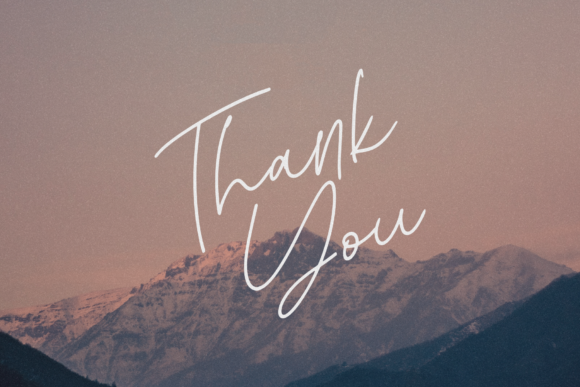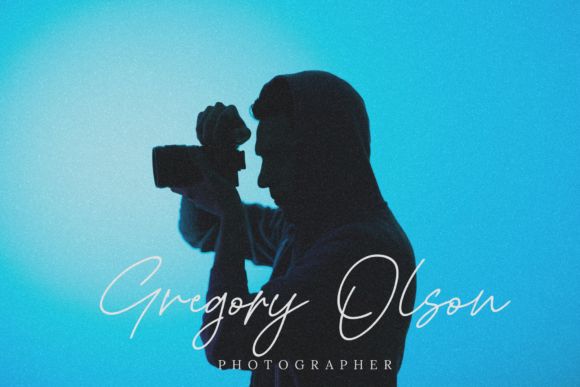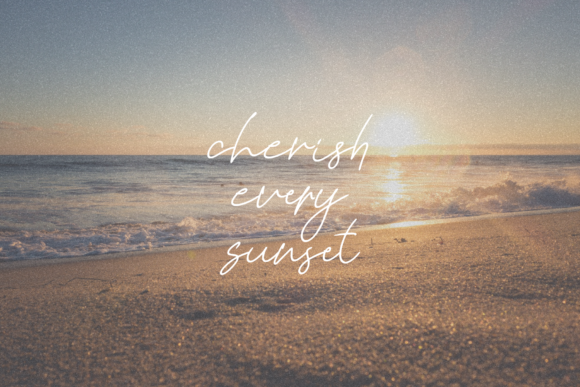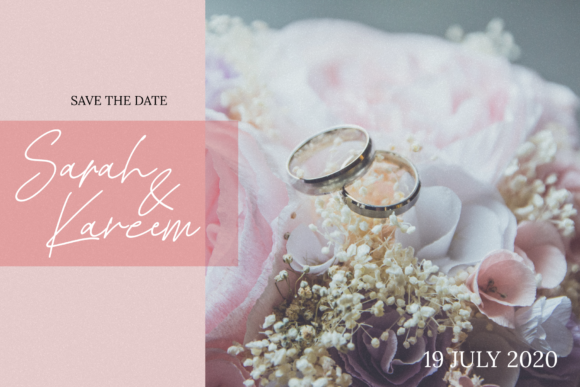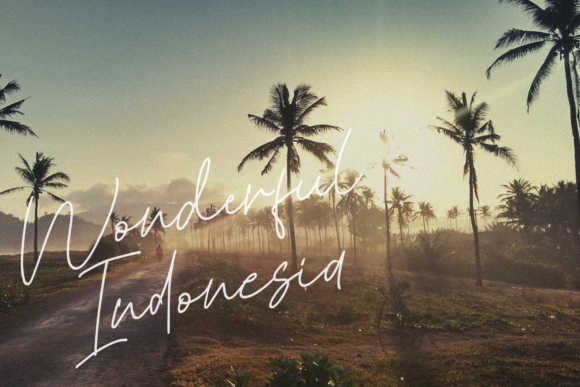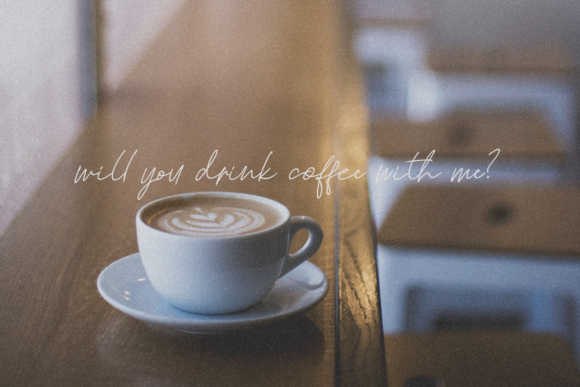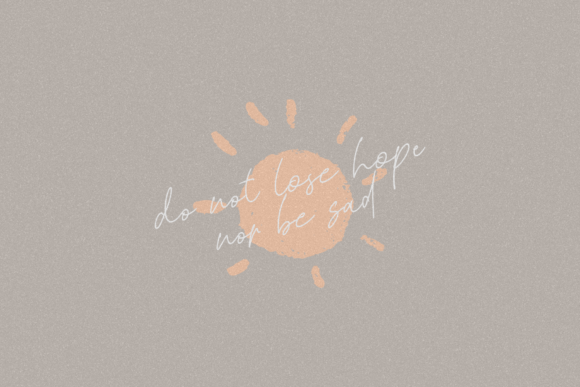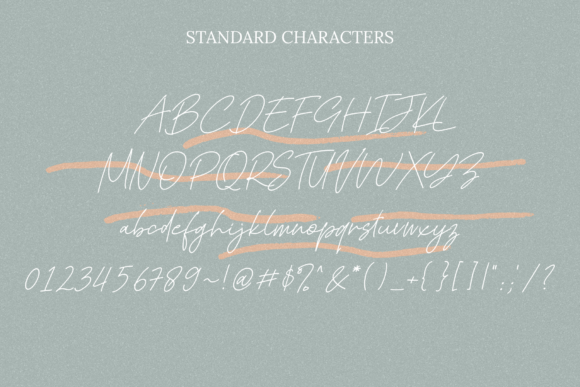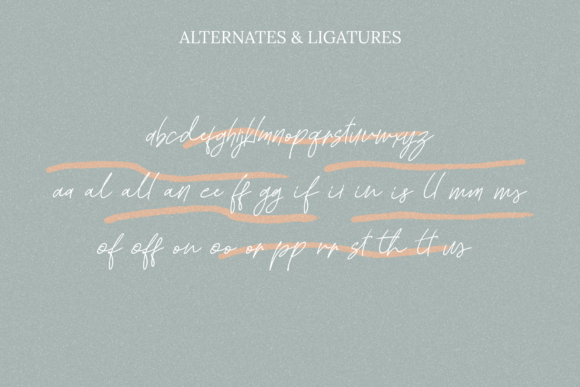
Kadung Tresno Font
About Kadung Tresno Font
Handwritten on-the-go, Kadung Tresno is a simple and authentic handwritten font with a cool twist. Use it to turn any design project into a true standout!